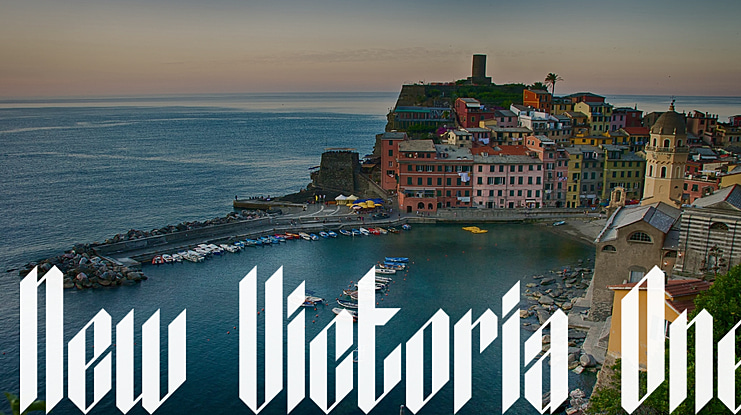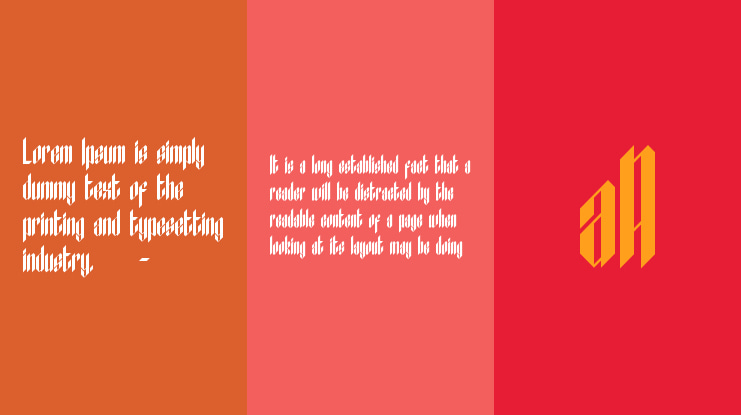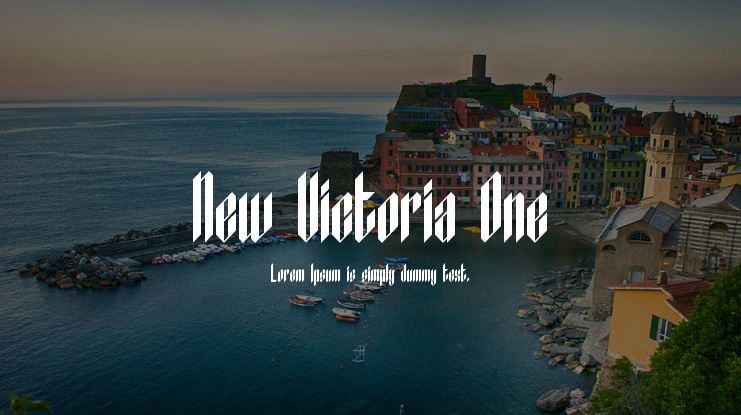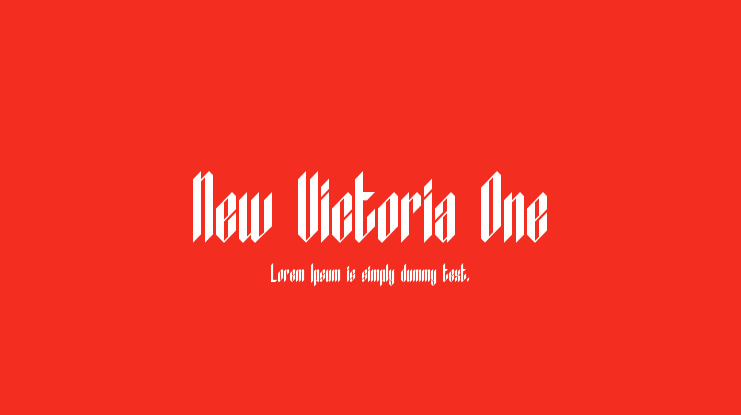
New Victoria One Font
Gumilang Anggara Ruslan
A modern blackletter typeface, designed by combining an old English style & modern style. It can be used for textbooks, display text, headlines, logotype, and more. Within support by multilingual glyphs (characters), & a lot of punctuations to support many people around the world with their unique language and accent.